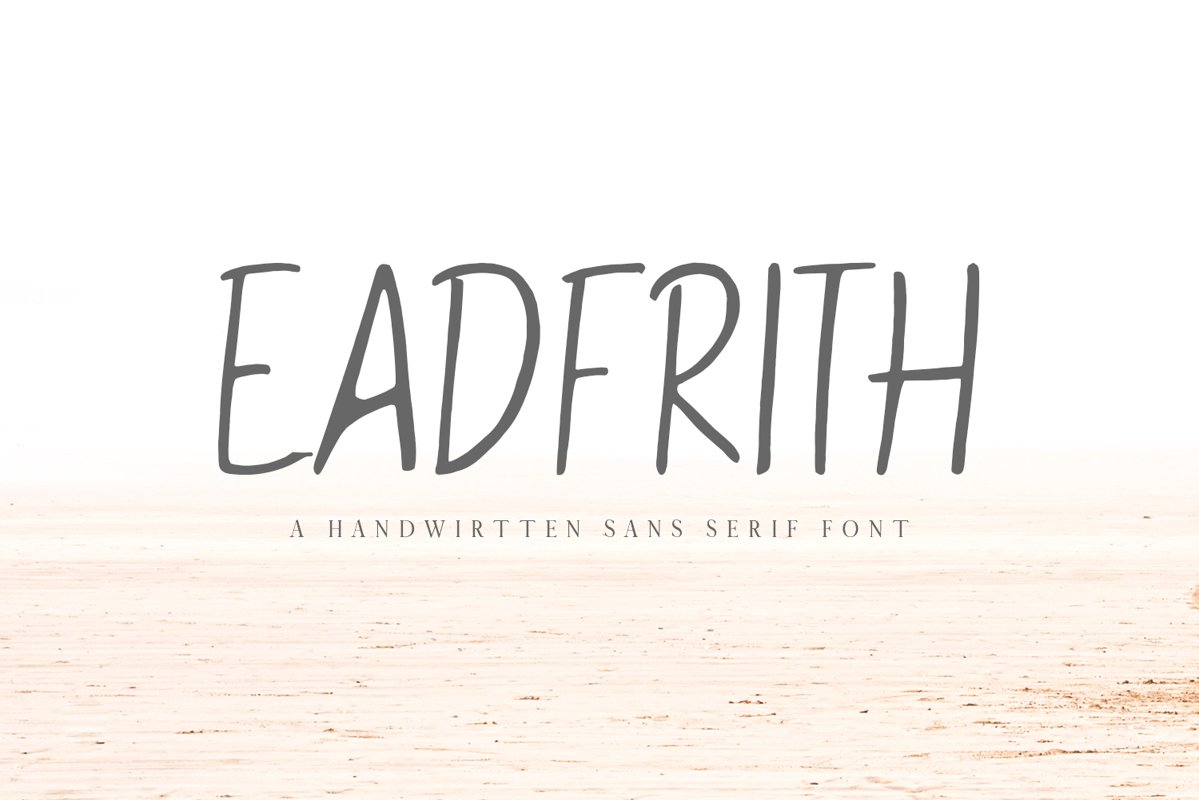
Eadfrith Handwirtten Sans Serif Font
EadfrithRegular
Eadfrith is a modern and beautiful handwritten sans serif typeface which will add charm into your designs. It contains uppercase and lowercase alphabet, numbers, punctuation, symbols with multilingual support. This font will pair beautifully with signature, sans serif or handwriting style. Eadfrith can be used for headlines, posters, branding, packaging, presentations, logo, quotes, titles, magazines headings, web layouts, advertising, invitations, packaging design, books, and nearly any creative design.
Eadfrith Font Features:
• Uppercase Letters
• Lowercase Letters
• Non English Characters ( Latin Supplement + Latin Extended A)
Supported Characters:
• ABCDEFGHIJKLMNOPQRSTUVWXYZ
• abcdefghijklmnopqrstuvwxyz
• 0123456789
• ÀÁÂÃÄÅÈÉÊËÌÍÎÏÑÒÓÔÕÖØÙÚÛÜàáâ
• ãäåèéêëìíîïñòóôõöøùúûüÿĤỲ
• !"#$%&’()*+,-./:;<=>?@[]^_`{|}~
• ¡¢£¥©«­®»¿‰‹›€√≤≥